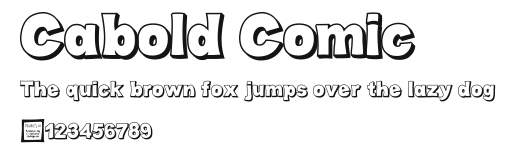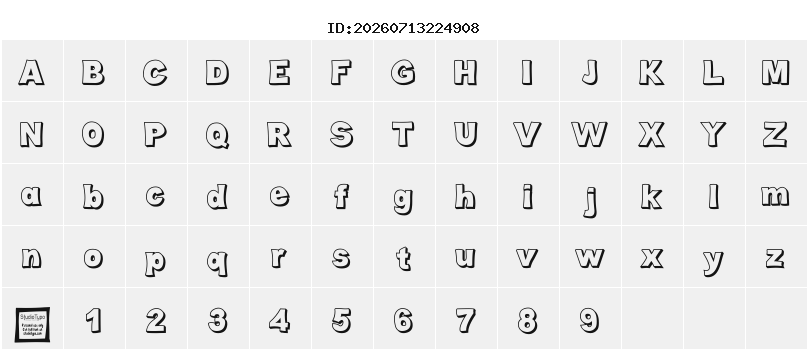
• Font Name: Cabold Comic
• Font ID: Cabold Comic:Version 1.00
• Full Font Name: Cabold Comic
• Version: Version 1.00 April 2, 2014, initial release
• PostScript Name: CaboldComic
• Character Count: 355
• Designer: Mehmet Abaci
• Manufacturer: StudioTypo
About Cabold Comic.ttf
Cabold Comic.ttf is a modern, elegant sans-serif font designed for ultimate readability and visual harmony. Perfect for branding, headlines, web design, and print materials.